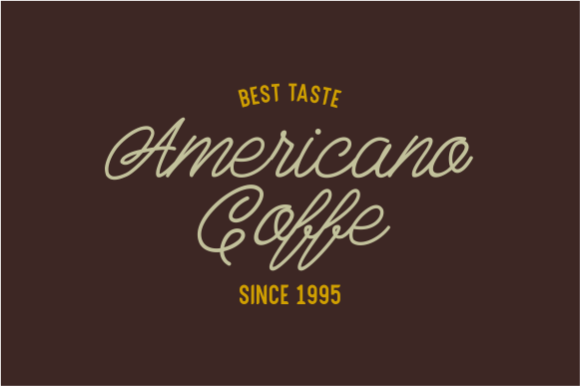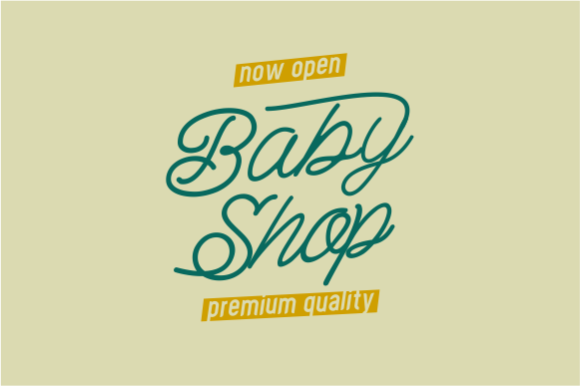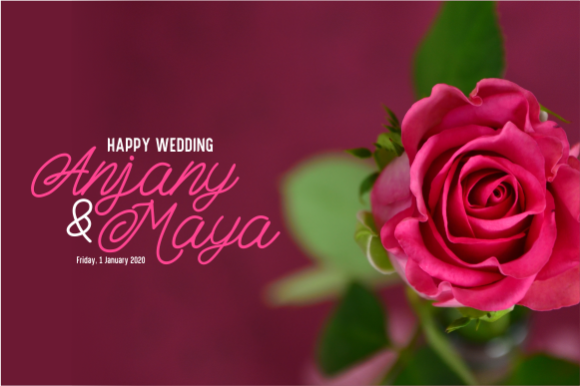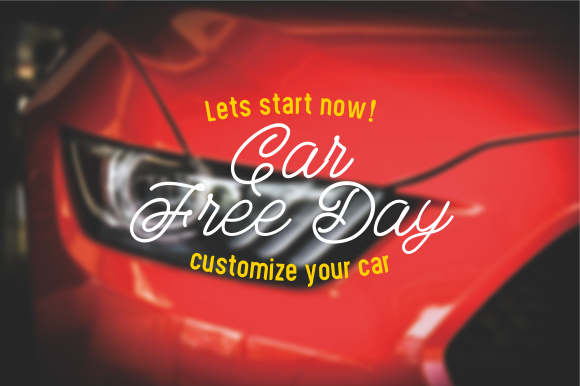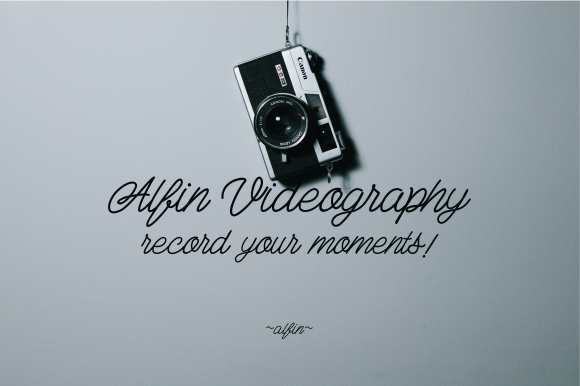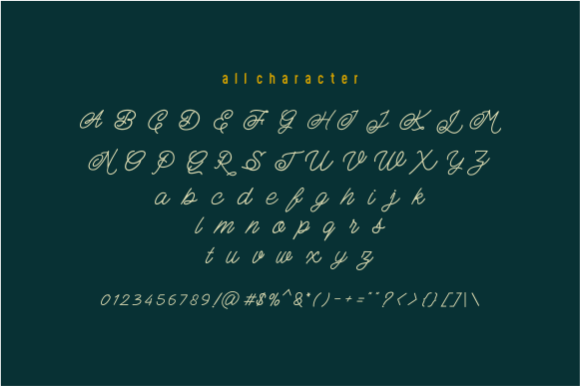
Discover the Elegance of Adam Script Font: Elevate Your Designs with a Classic yet Friendly Touch
In the world of typography, finding the perfect font that combines elegance, flexibility, and friendliness can be a daunting task. However, for designers and crafters looking to add a touch of sophistication and approachability to their projects, Adam Script Font stands out as an exceptional choice. This beautifully crafted monoline font is not only a feast for the eyes but also a versatile tool that can elevate your designs to new heights.
The Classic Style of Adam Script Font
Adam Script Font boasts an incredibly classic style that harks back to the timeless elegance of traditional calligraphy. Its monoline design ensures a fluidity and continuity that is both visually appealing and highly legible. This classic approach makes it an ideal font for projects that require a sense of tradition and reliability, such as luxury brand logos, high-end event invitations, and elegant product packaging.
Example of Adam Script Font in use
A Friendly Feel for Approachable Designs
What sets Adam Script Font apart from other classic fonts is its friendly feel. Despite its elegant appearance, it manages to convey a sense of warmth and approachability that makes it perfect for designs aimed at a broader audience. Whether you’re working on a children’s book, a lifestyle blog, or a community-focused campaign, Adam Script brings a welcoming vibe that can help connect with your audience on a more personal level.
The Perfect Font for Original and Outstanding Designs
Adam Script’s unique blend of classic style and friendly demeanor makes it the perfect font for designers and crafters looking to create original and outstanding designs. Its flexibility allows it to be used across a wide range of projects, from digital content like social media graphics and website headers to print materials such as posters, flyers, and business cards.
Key Features of Adam Script Font:
• Elegant and Flexible: Offers a sophisticated look that can adapt to various design needs.
• Monoline Design: Provides a clean and modern aesthetic with fluid connections.
• Classic yet Friendly: Strikes the perfect balance between traditional elegance and approachable warmth.
• Highly Legible: Ensures your message is conveyed clearly and effectively.
• Versatile: Suitable for both digital and print projects across various industries.
Tips for Using Adam Script Font
To make the most out of Adam Script Font, consider the following tips:
• Pair with Contrasting Fonts: Combine Adam Script with simpler fonts to create visual hierarchy and interest.
• Experiment with Colors: While the font looks great in black, don’t be afraid to experiment with colors that match your brand or project’s theme.
• Adjust Letter Spacing: For a more customized look, adjust the letter spacing to fit the mood of your design.
Adam Script Font is a remarkable addition to any designer’s toolkit. Its elegant and flexible nature, combined with its classic yet friendly appearance, makes it an ideal choice for a wide array of projects. Whether you’re looking to create sophisticated luxury brands or approachable community projects, Adam Script offers the versatility and charm to bring your designs to life. Discover the elegance and potential of Adam Script Font today and take your designs to new heights of creativity and professionalism.